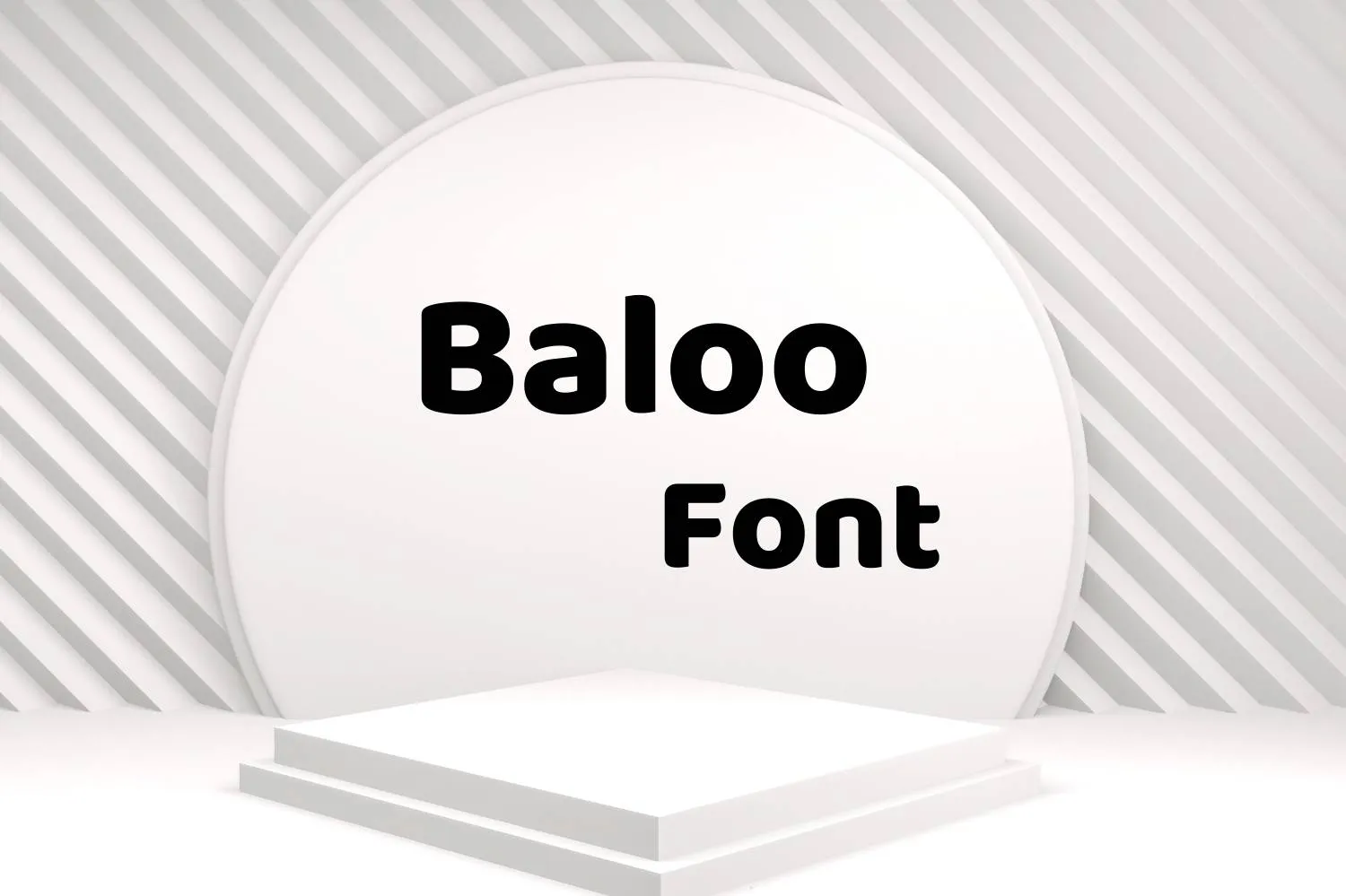
Baloo Font Code . A perfect blend of pointy paws in a coat of fur, baloo is an affable display typeface by ek type. Adobe fonts is the easiest way to. Baloo 2 is an extension of the earlier baloo project. A perfect blend of pointy paws in a coat of fur, baloo is an affable display typeface by ek type. It's a display typeface that combines playful and modern elements. Explore baloo 2 available at adobe fonts. Get your own website result size: The new baloo 2 includes additional weights and glyphs, redesign of baloo tammudu. Available in nine indian scripts plus arabic along with a. Making the web more beautiful, fast, and open through great typography. Baloo 2 is a font family designed by ek type, an indian type foundry. A typeface with 5 styles, available from adobe fonts for sync and web use. Available in nine indian scripts along with a.
A typeface with 5 styles, available from adobe fonts for sync and web use. Explore baloo 2 available at adobe fonts. Baloo 2 is an extension of the earlier baloo project. Available in nine indian scripts plus arabic along with a. A perfect blend of pointy paws in a coat of fur, baloo is an affable display typeface by ek type. Adobe fonts is the easiest way to. The new baloo 2 includes additional weights and glyphs, redesign of baloo tammudu. Baloo 2 is a font family designed by ek type, an indian type foundry. Get your own website result size: Making the web more beautiful, fast, and open through great typography.
Baloo Font Code Making the web more beautiful, fast, and open through great typography. Available in nine indian scripts plus arabic along with a. A perfect blend of pointy paws in a coat of fur, baloo is an affable display typeface by ek type. The new baloo 2 includes additional weights and glyphs, redesign of baloo tammudu. Adobe fonts is the easiest way to. Making the web more beautiful, fast, and open through great typography. Get your own website result size: A typeface with 5 styles, available from adobe fonts for sync and web use. It's a display typeface that combines playful and modern elements. Available in nine indian scripts along with a. Baloo 2 is a font family designed by ek type, an indian type foundry. Explore baloo 2 available at adobe fonts. A perfect blend of pointy paws in a coat of fur, baloo is an affable display typeface by ek type. Baloo 2 is an extension of the earlier baloo project.
Baloo 2 Font Download Baloo Font Code Baloo 2 is an extension of the earlier baloo project. Baloo 2 is a font family designed by ek type, an indian type foundry. Available in nine indian scripts plus arabic along with a. Available in nine indian scripts along with a. A typeface with 5 styles, available from adobe fonts for sync and web use. Adobe fonts is the. Baloo Font Code.
Baloo font download Baloo Font Code Explore baloo 2 available at adobe fonts. A perfect blend of pointy paws in a coat of fur, baloo is an affable display typeface by ek type. Baloo 2 is a font family designed by ek type, an indian type foundry. Adobe fonts is the easiest way to. Baloo 2 is an extension of the earlier baloo project. A typeface. Baloo Font Code.
Baloo Font Free Download Baloo Font Code A perfect blend of pointy paws in a coat of fur, baloo is an affable display typeface by ek type. It's a display typeface that combines playful and modern elements. Baloo 2 is a font family designed by ek type, an indian type foundry. Baloo 2 is an extension of the earlier baloo project. Making the web more beautiful, fast,. Baloo Font Code.
Baloo Font Free Download Baloo Font Code Explore baloo 2 available at adobe fonts. Baloo 2 is a font family designed by ek type, an indian type foundry. Baloo 2 is an extension of the earlier baloo project. A typeface with 5 styles, available from adobe fonts for sync and web use. Making the web more beautiful, fast, and open through great typography. Available in nine indian. Baloo Font Code.
Baloo Font Free Download Baloo Font Code A typeface with 5 styles, available from adobe fonts for sync and web use. The new baloo 2 includes additional weights and glyphs, redesign of baloo tammudu. A perfect blend of pointy paws in a coat of fur, baloo is an affable display typeface by ek type. Baloo 2 is an extension of the earlier baloo project. Get your own. Baloo Font Code.
Baloo 2 Typeface Font Download Free Baloo Font Code Explore baloo 2 available at adobe fonts. Available in nine indian scripts plus arabic along with a. Baloo 2 is an extension of the earlier baloo project. Available in nine indian scripts along with a. Making the web more beautiful, fast, and open through great typography. The new baloo 2 includes additional weights and glyphs, redesign of baloo tammudu. Baloo. Baloo Font Code.
Baloo Font Free by EK Type » Font Squirrel Baloo Font Code Available in nine indian scripts plus arabic along with a. Available in nine indian scripts along with a. It's a display typeface that combines playful and modern elements. Making the web more beautiful, fast, and open through great typography. Baloo 2 is an extension of the earlier baloo project. A perfect blend of pointy paws in a coat of fur,. Baloo Font Code.
Baloo Font Free Download Baloo Font Code Baloo 2 is a font family designed by ek type, an indian type foundry. Available in nine indian scripts plus arabic along with a. Available in nine indian scripts along with a. Get your own website result size: A perfect blend of pointy paws in a coat of fur, baloo is an affable display typeface by ek type. Adobe fonts. Baloo Font Code.
Baloo Font Family Download Free for Desktop & font Baloo Font Code Get your own website result size: A perfect blend of pointy paws in a coat of fur, baloo is an affable display typeface by ek type. The new baloo 2 includes additional weights and glyphs, redesign of baloo tammudu. A typeface with 5 styles, available from adobe fonts for sync and web use. Available in nine indian scripts along with. Baloo Font Code.
Baloo Font Free Download Baloo Font Code The new baloo 2 includes additional weights and glyphs, redesign of baloo tammudu. Adobe fonts is the easiest way to. Making the web more beautiful, fast, and open through great typography. Baloo 2 is an extension of the earlier baloo project. It's a display typeface that combines playful and modern elements. Available in nine indian scripts plus arabic along with. Baloo Font Code.